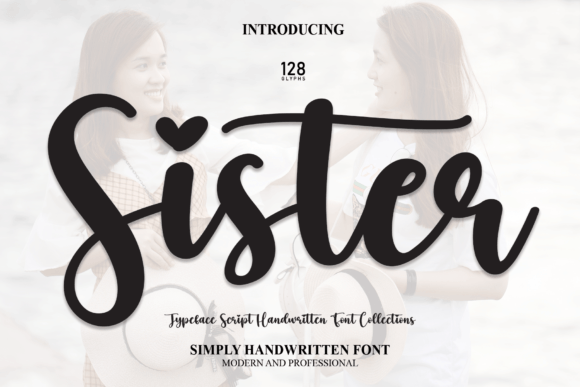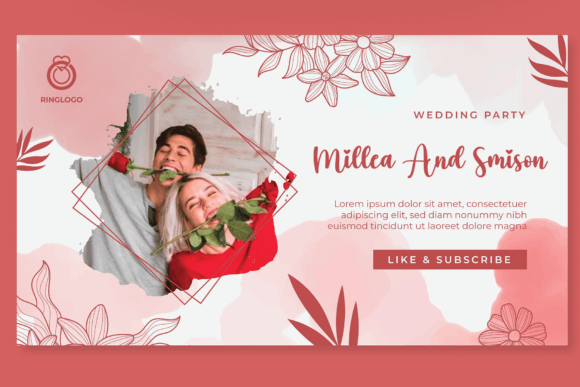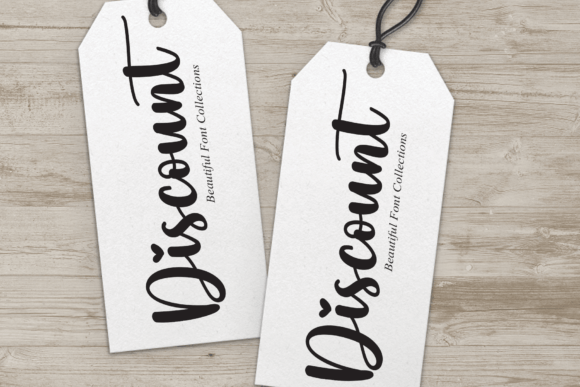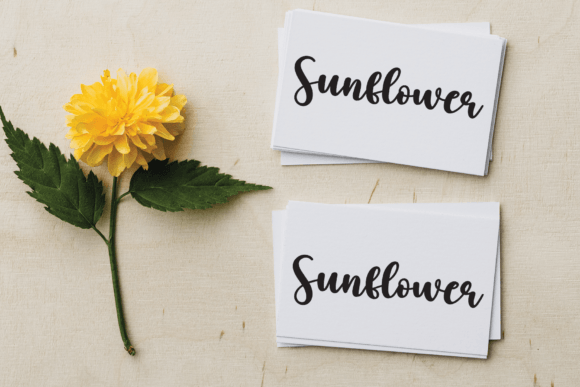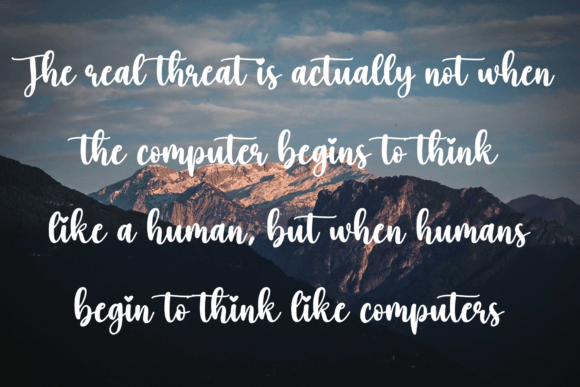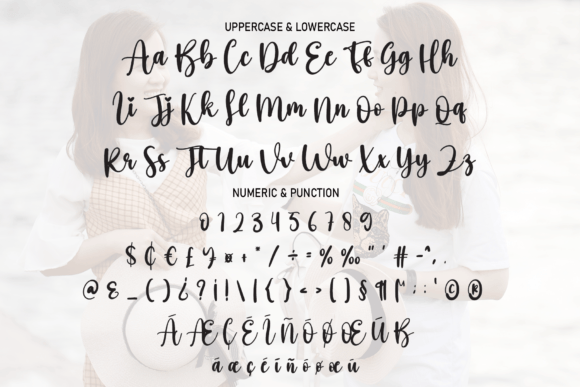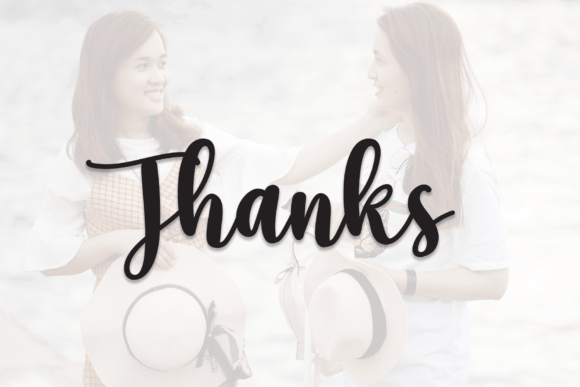
Sister Font
About Sister Font
“Sister” is more than just a font; it’s a sweet and cursive handwritten signature script that brings a touch of joy and romance to your designs. With its gentle and flowing style, this font looks gorgeous on a variety of design ideas, adding a sense of warmth and elegance to each project it graces. Perfectly suited for branding, logos, wedding materials, greeting cards, fashion, lookbooks, and marketing promotions, “Sister” strikes the perfect balance between fancy elegance and casual charm.
The cursive and handwritten nature of “Sister” imparts a personal touch to your designs, making them feel more intimate and engaging. The font’s versatility shines through in its ability to adapt seamlessly to different contexts, making it an ideal choice for a diverse range of projects.
Whether you’re creating a sophisticated logo, crafting wedding invitations, or designing marketing materials that demand a touch of elegance, “Sister” delivers. Its gentle curves and graceful strokes add a romantic and joyful element to your typography, making it a delightful choice for expressing a range of emotions.
In summary, “Sister” is a font that combines sweetness, cursive elegance, and a handwritten signature style. Whether you’re a professional designer or someone with a penchant for creative expression, let “Sister” be the font that adds a touch of joy and romance to your projects, making them stand out with a blend of fancy elegance and casual charm.